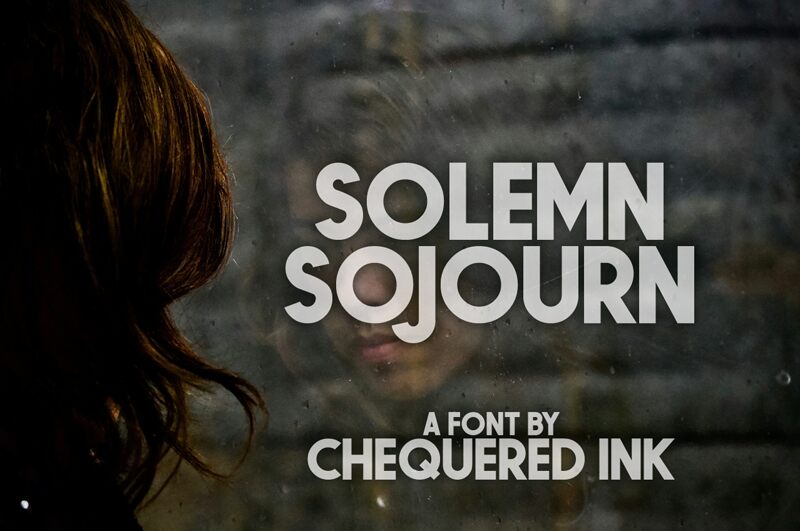
Solemn Sojourn
Solemn Sojourn font by Chequered Ink is a free sans serif typeface with a bold, sculpted personality. Heavy, inky strokes and tight spacing give it a solid, almost architectural feel, while the rounded bowls and clean verticals add a smooth, contemporary rhythm. It looks like it’s been carved from a single block of black, making every word feel deliberate and weighty without losing readability.
Using Solemn Sojourn, headlines and logotypes immediately gain presence—great for posters, album covers, event branding, bold packaging, and hero web banners. This free font shines when set large, where its dense shapes and rounded corners can really breathe; pair it with a light, neutral sans for body text to balance out its strong, chunky character.